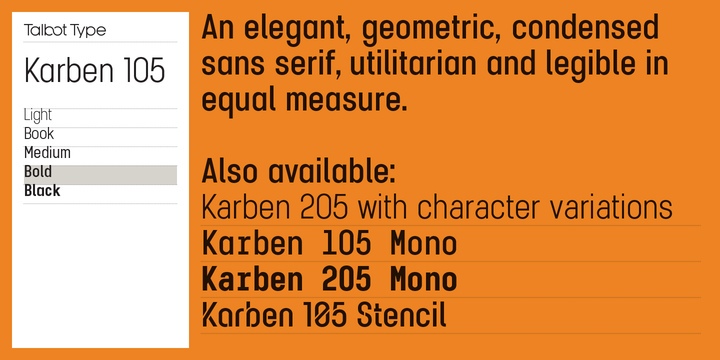
Karben 105 Font
Karben 105 Font is excellent for corporate branding, business reports, professional presentations, annual reports, website headers, marketing materials, signage systems, editorial layouts, financial documents, and contemporary advertising campaigns.
What makes Karben 105 Font exciting is its perfect fusion of geometric precision and humanistic warmth, creating a versatile sans-serif typeface that delivers exceptional readability while maintaining strong brand presence. This modern typeface strikes an ideal balance between professional authority and approachable accessibility.
Karben 105 Font family includes multiple weights from thin to black, with corresponding italics and condensed variations, providing designers with comprehensive typographic flexibility for complex brand systems and hierarchical information design.
Karben 105 Font embodies contemporary design principles with its clean geometric structure enhanced by subtle optical corrections that ensure optimal performance across all applications. This sophisticated typeface delivers consistent brand messaging while adapting seamlessly to various contexts, from digital interfaces to large-scale environmental graphics.
Corporate designers consistently select Karben 105 Font Free Download for its versatility in professional communications and brand identity systems. The font's neutral yet distinctive character provides reliable foundation for companies seeking to convey competence, innovation, and trustworthiness across diverse market sectors.
The extensive character library includes complete Latin alphabets, comprehensive punctuation, mathematical symbols, and currency signs supporting international business applications. Karben 105 Font offers excellent multilingual support with advanced OpenType features for professional typography control.
Karben 105 Font performs exceptionally across digital platforms and traditional print media, maintaining its crisp definition and professional appearance whether displayed on high-resolution screens or reproduced in corporate publications. The font's careful spacing and proportions ensure consistent brand representation.
Brand strategists and graphic designers appreciate how Karben 105 Font adapts to various communication needs while maintaining visual coherence. Its systematic design approach facilitates efficient workflow management in complex branding projects requiring multiple typographic applications.
Whether you're developing corporate identity systems, creating business communications, or designing professional websites, Karben 105 Font provides the reliability and sophistication essential for successful brand implementation across all touchpoints.